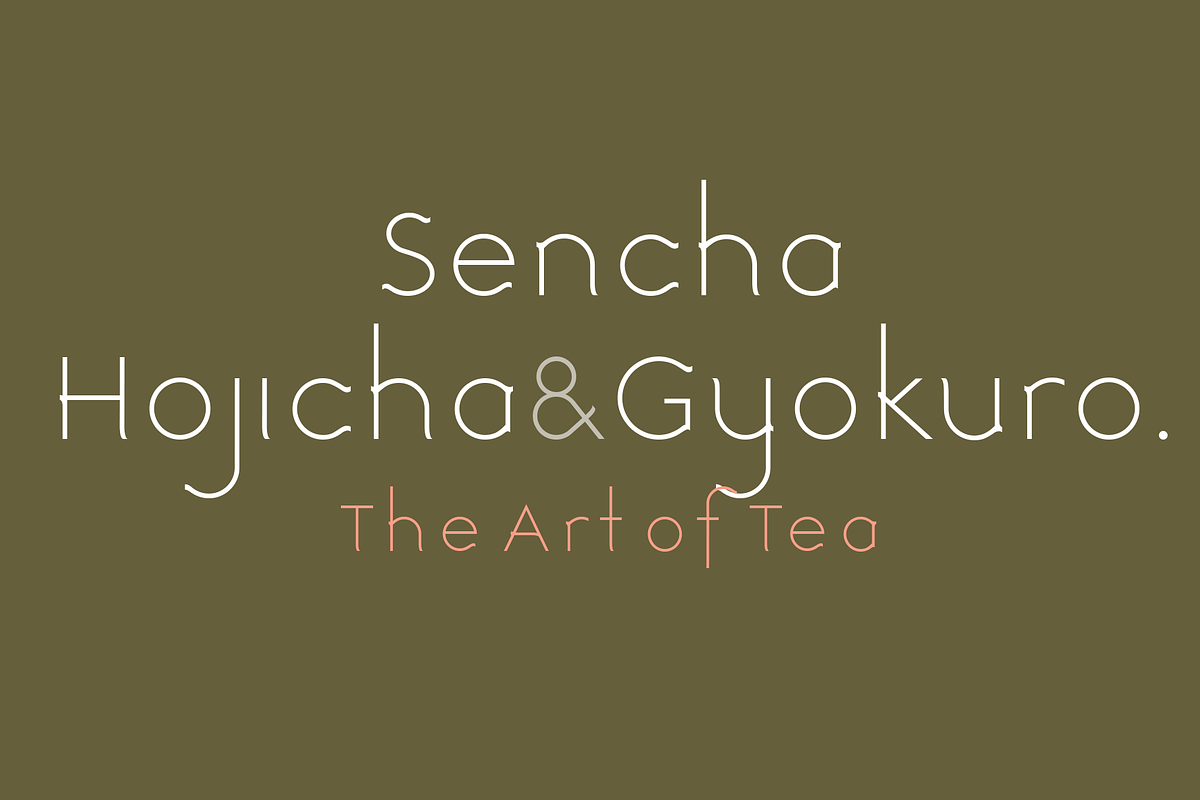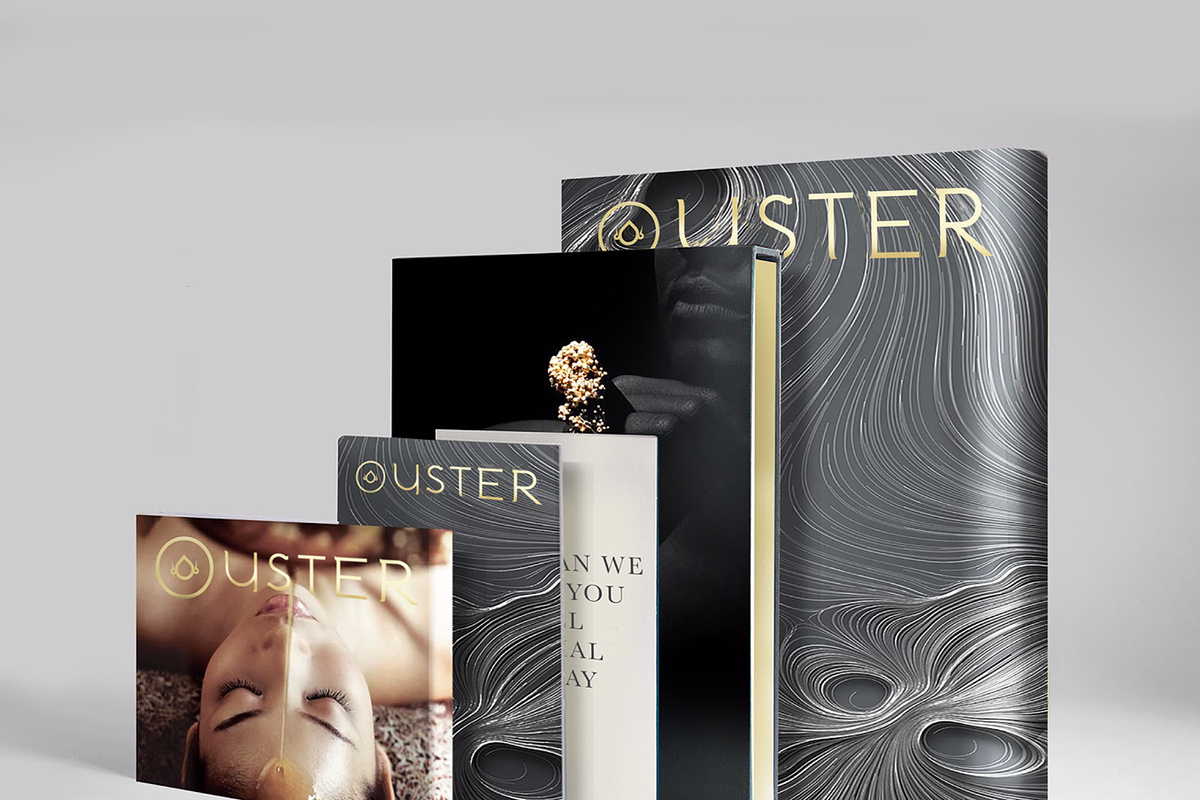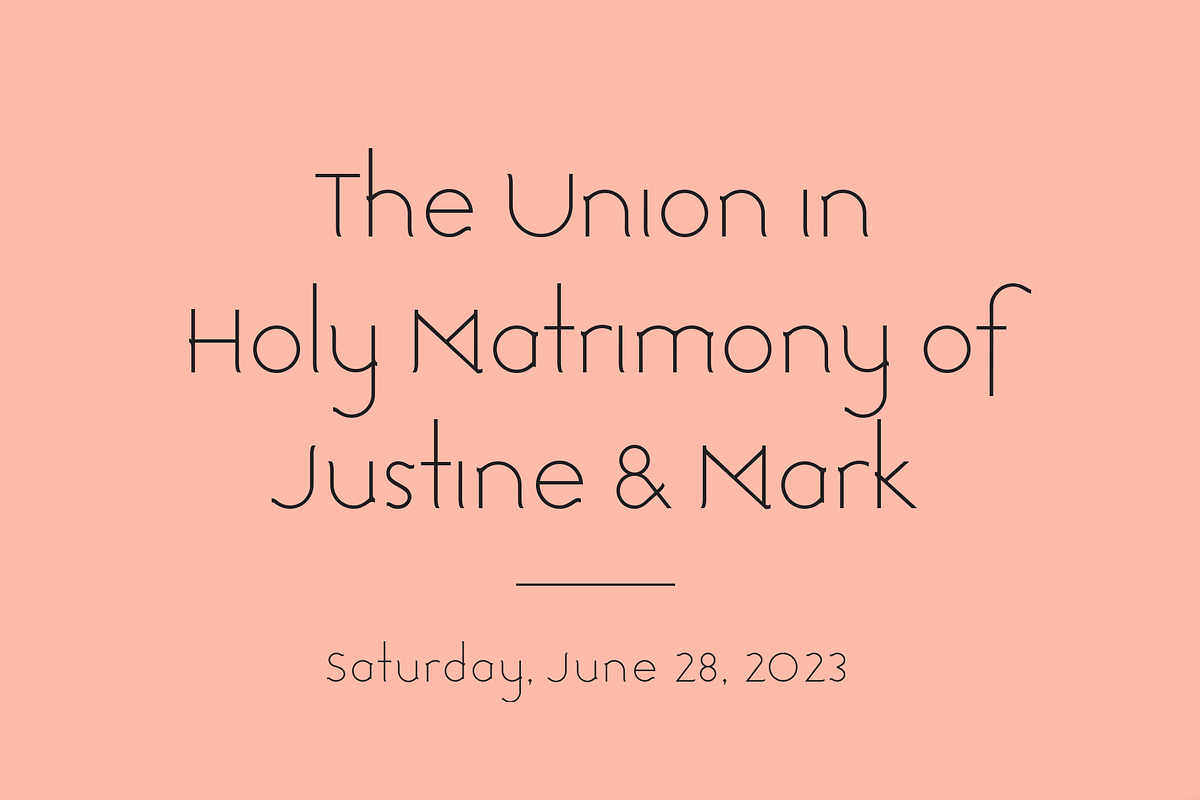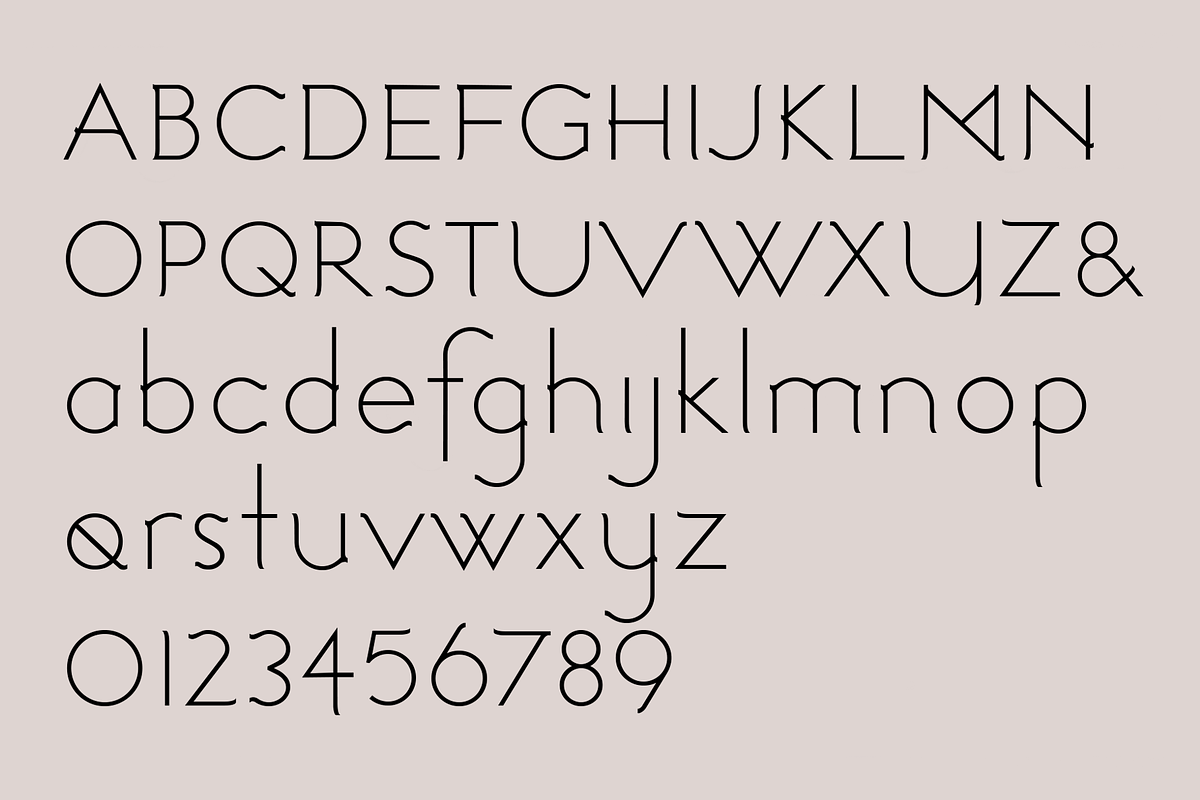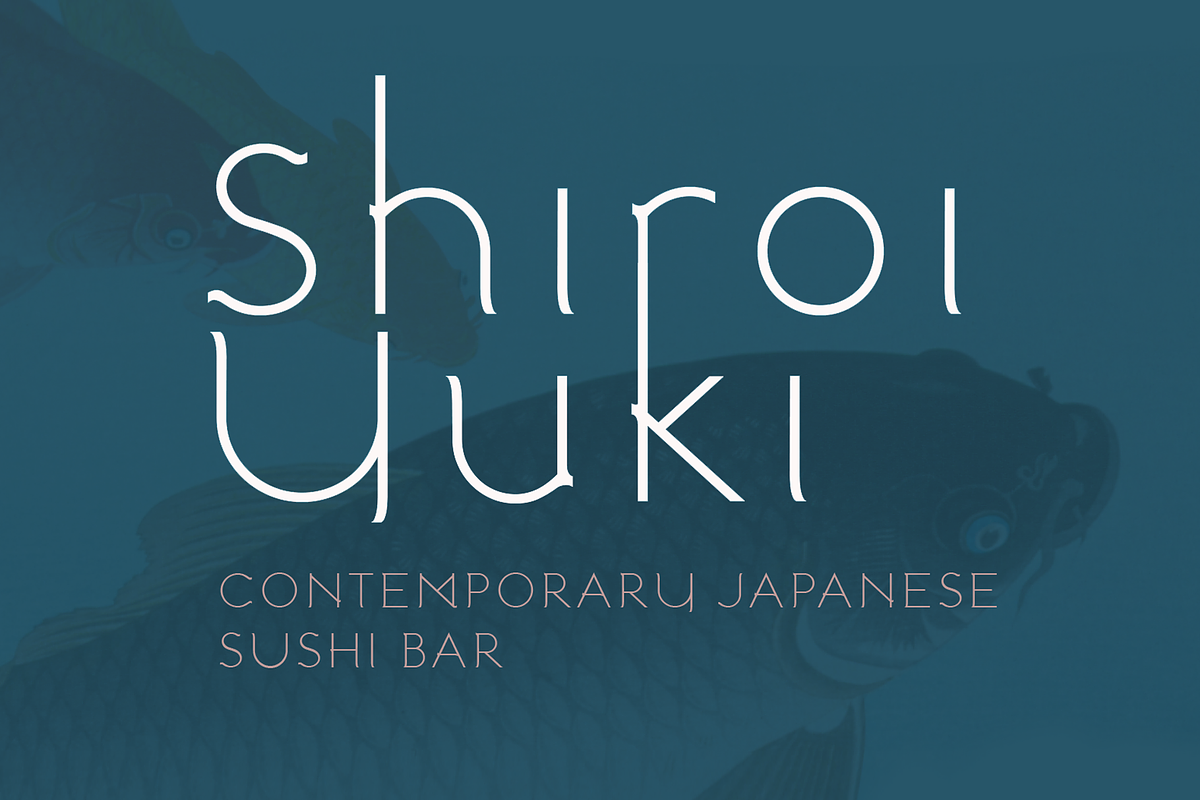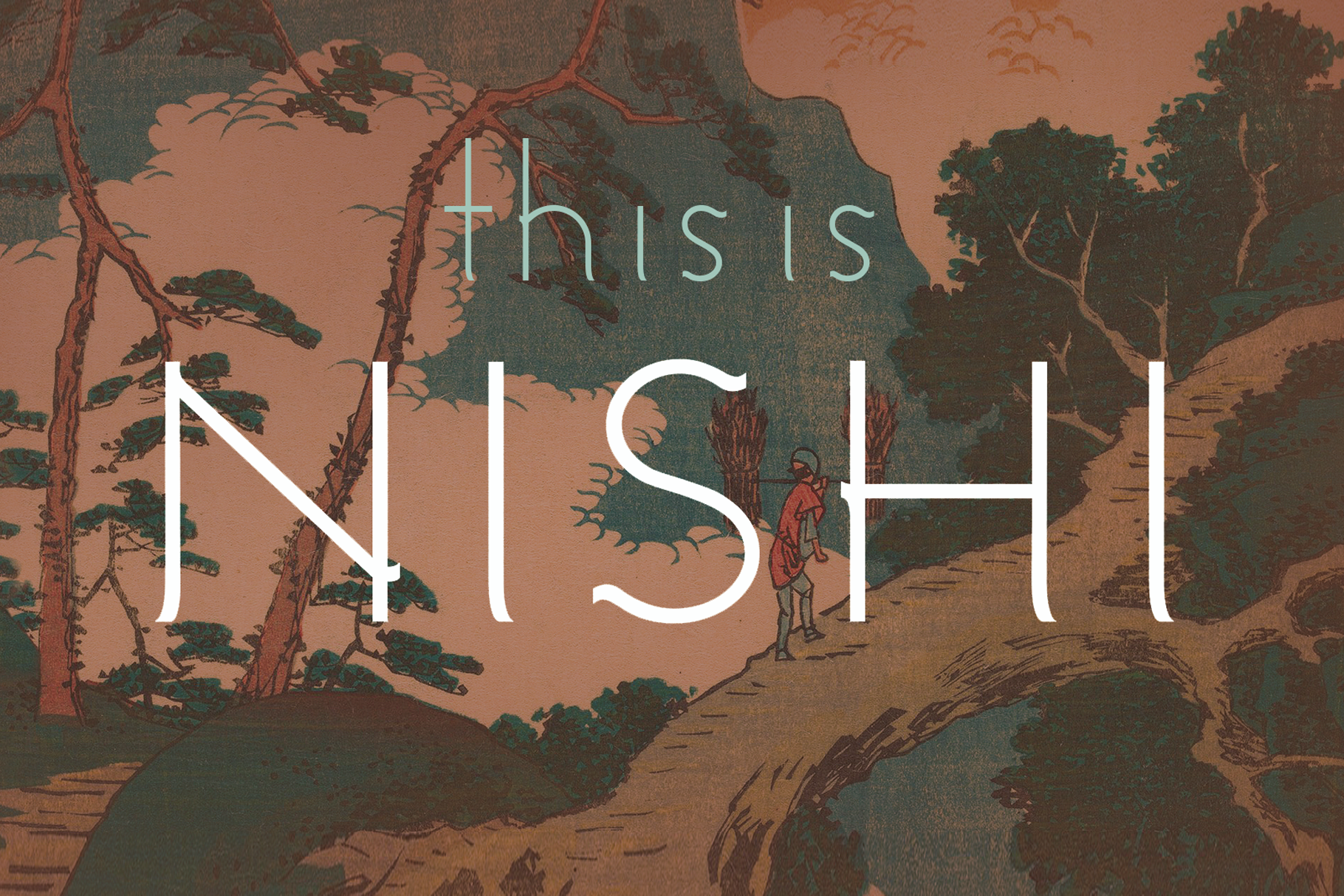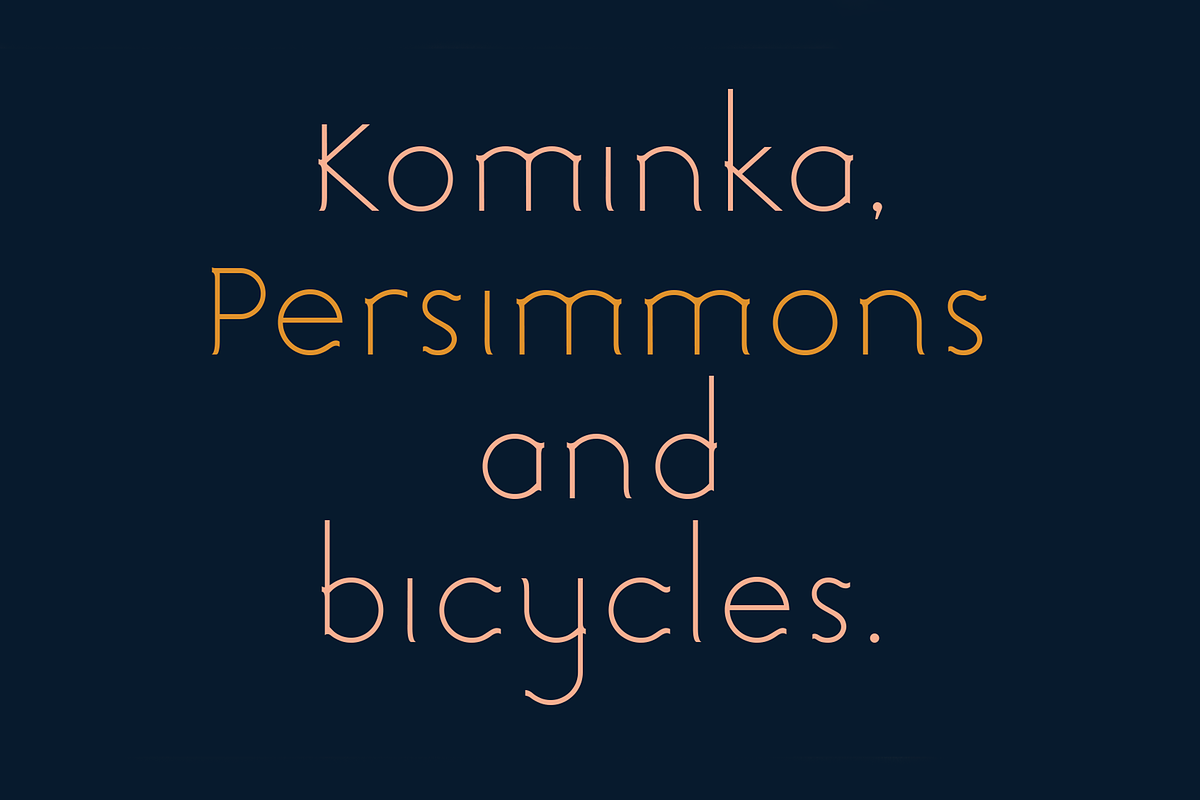
Nishi. Chic, modern sans serif font
Nishi is another beautiful new 'crossover font' from LostandFoundry. This designer font is loaded with character and has the look and feel of a modern sans serif font, but with subtle, 'serif-like' touches.
Nishi is inspired by my love of Japan and its culture, and I wanted that influence to be subtle, not stereotypical. Because at the end of the day, regardless of the creative influence I started with when designing this font, it is still a beautiful modern font with clean lines, yet unique, elegant and with a sophisticated identity. Definitely a font every designer needs to add to their font library.